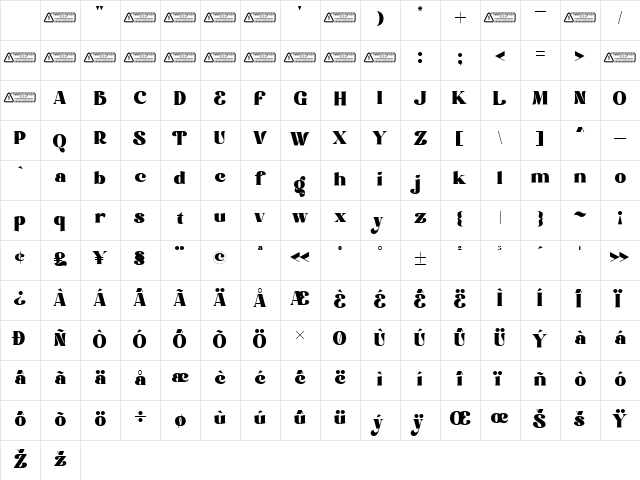
Complete Badmood Demo Regular glyph index. Displaying only characters natively supported by Badmood Demo Regular font.
Badmood Demo is a composed and adaptable typeface that performs quietly and consistently across a wide range of design contexts.